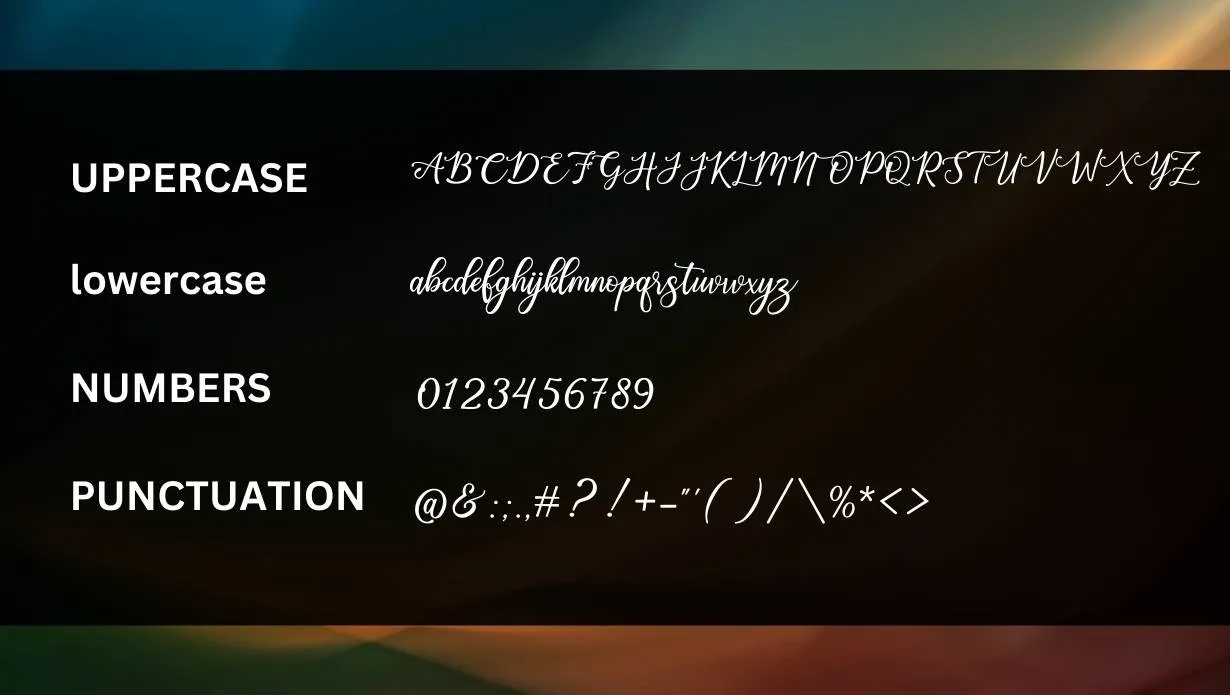
Happy Birthday Font can be used for several purposes primarily, for designing birthday wishing cards or wedding invitation cards. Due to its unique and elegant features, this font is gaining popularity across the world and people are making the most out of it for designing their logos.
This amazing font is a calligraphic font which is designed by Woodcutter Manero. It is designed so elegantly which at times, looks as if it is drawn with flat-tipped brushes or pens.
View of Happy Birthday Font
Happy Birthday Font Info
| Name | Happy Birthday Font |
| Designer | Woodcutter Manero |
| Style | calligraphic |
- Happy Birthday Italic
- Happy Birthday Light Italic
- Happy Birthday Regular